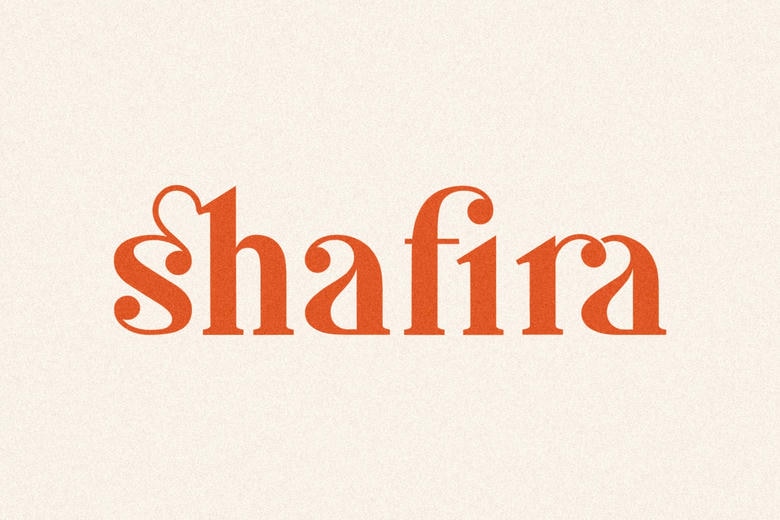
Shafira Font
Shafira is a modern and elegant serif font. It is a super unique ligature font that you wont forget! It is the perfect fit for all luxury projects such as wedding invitations, signatures, luxury logos, printed quotes, grettings cards, social media headers, product packaging and many more!
Shafira Serif Font